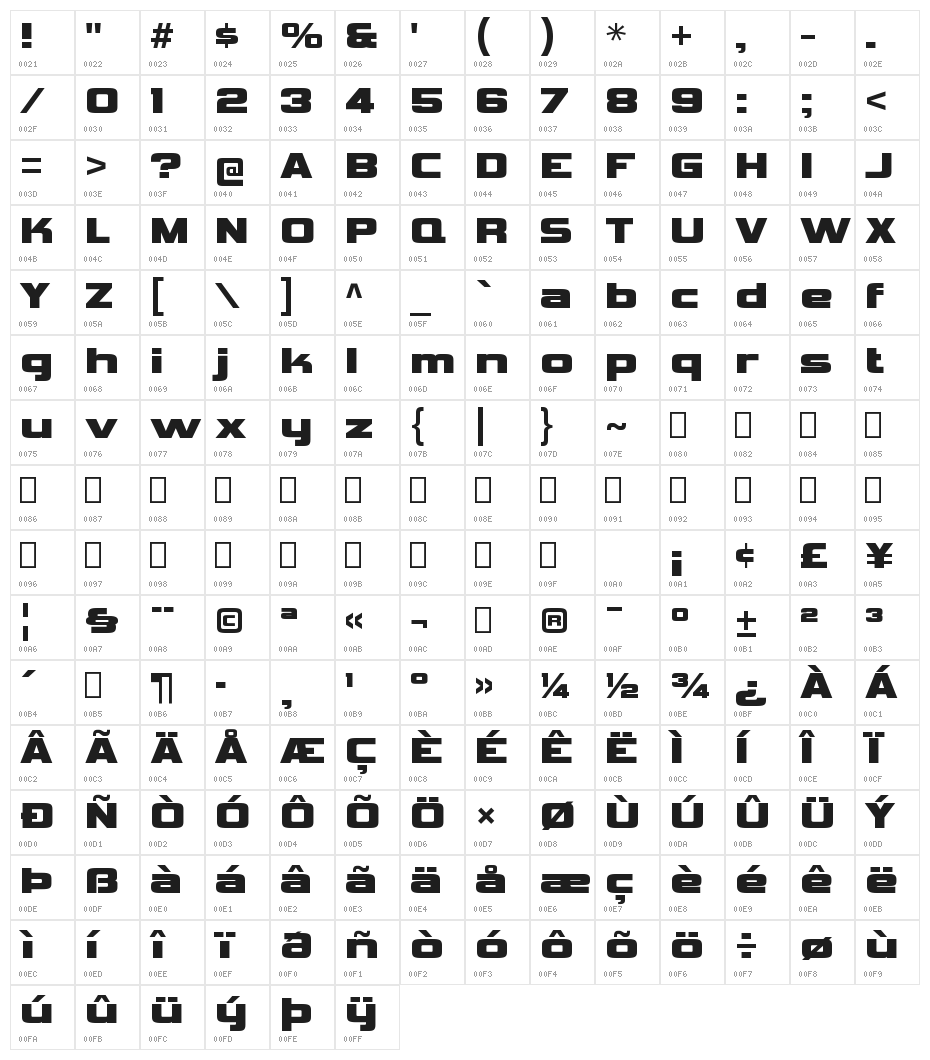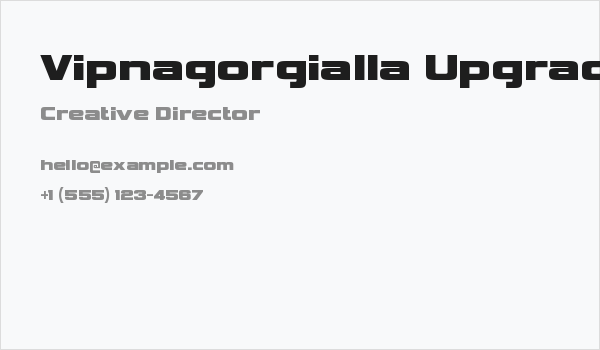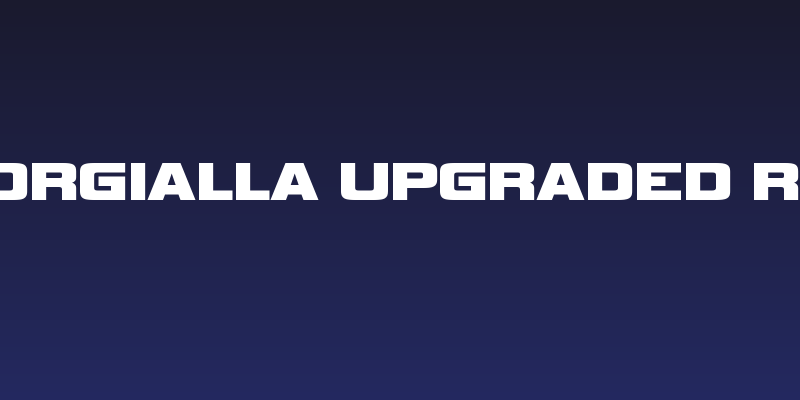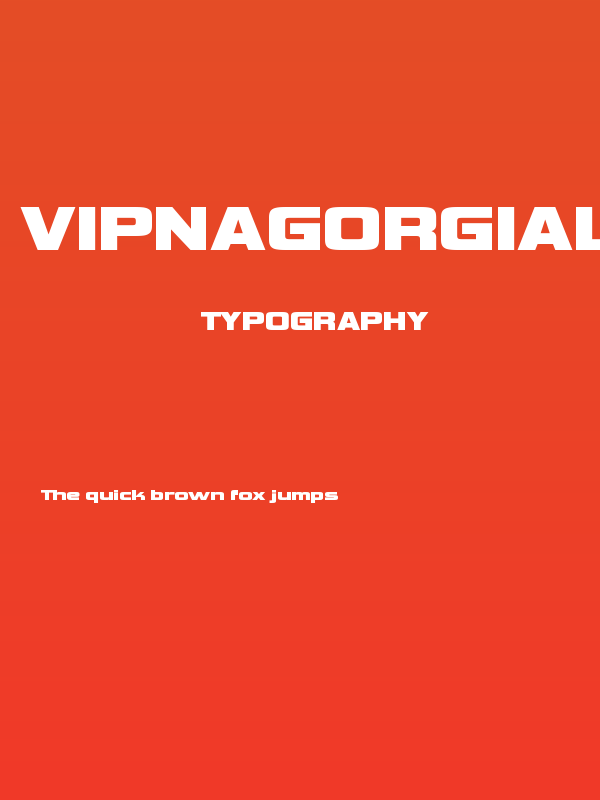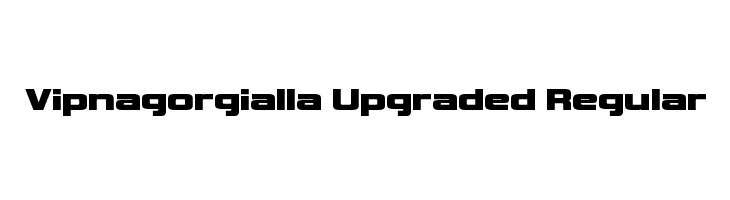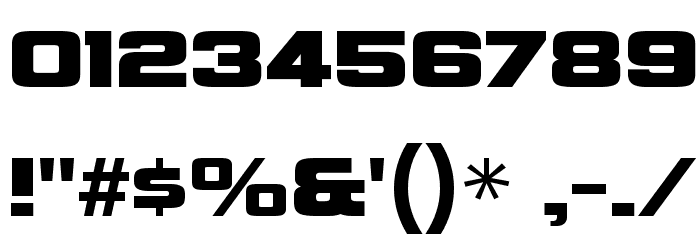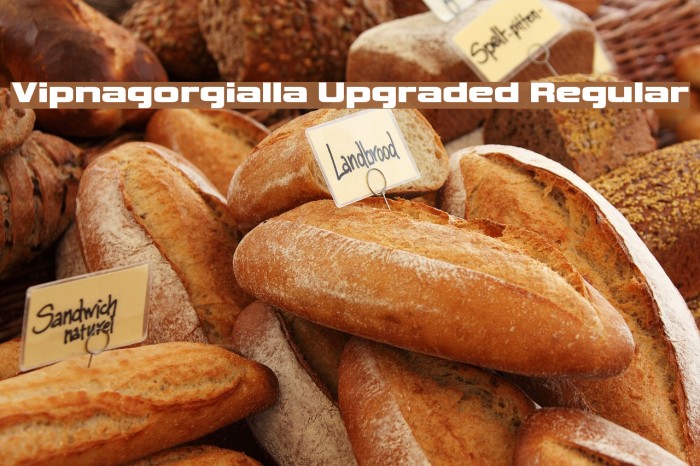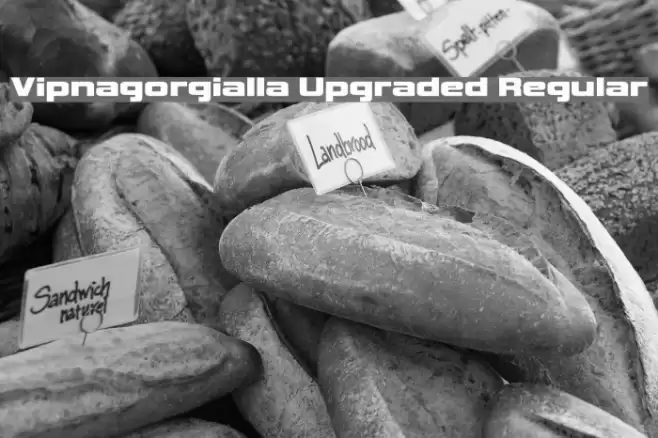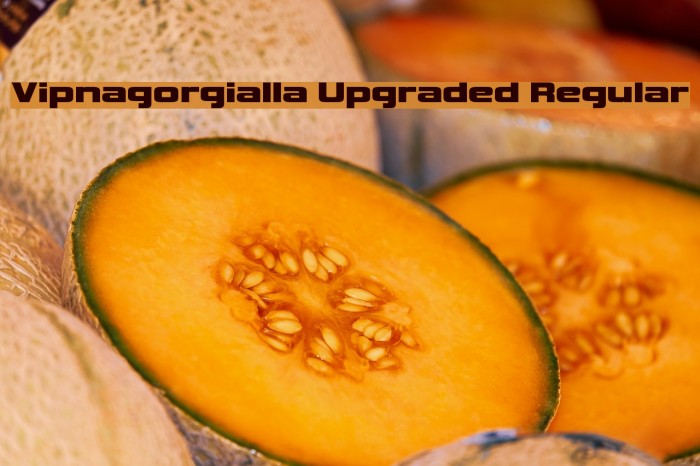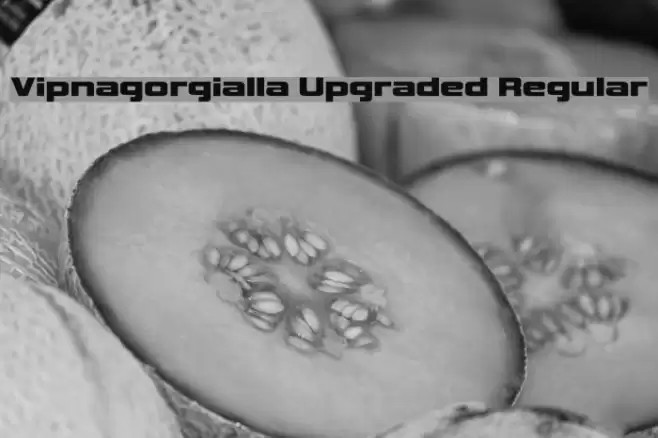
Vipnagorgialla Upgraded Regular Font
Vipnagorgialla Upgraded Regular Description
This font features a bold and modern design with strong geometric shapes and a solid presence. The uppercase letters are uniform in height, providing a cohesive look, while the lowercase letters maintain a similar width, ensuring readability. The numerals are consistent with the overall style, offering a balanced appearance. Special characters are distinct and integrate seamlessly with the alphanumeric characters. The font's boldness and clarity make it suitable for impactful designs.
| Proposed Projects | Ideal for branding, headlines, posters, and digital media where a strong visual impact is desired. |